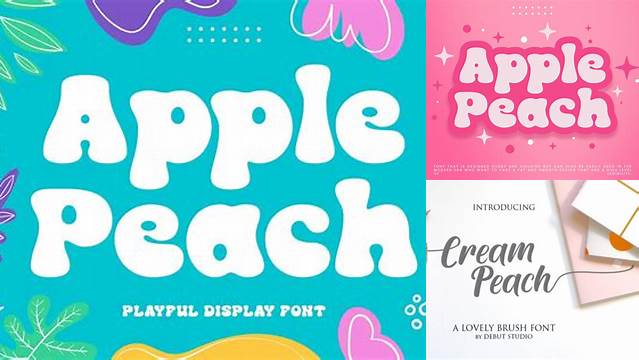
Hey guys! Are you looking for that perfect, whimsical font to add a touch of sweetness to your projects? Well, you've come to the right place! We're diving deep into the world of the Apple Peach font, a delightful typeface that's been making waves in the design community. This font is perfect for everything from invitations and greeting cards to social media graphics and branding materials. Let’s explore where you can find this gem, how to use it, and why it's such a fantastic choice. We'll cover everything you need to know about getting your hands on the Apple Peach font in TTF format and using it to its fullest potential. So, buckle up and let's get started!
Apple Peach Font: What Makes It So Special?
The Apple Peach font has a unique charm that sets it apart from other fonts. It’s playful yet elegant, making it a versatile choice for various design needs. Its hand-lettered style gives it a personal touch, as if each letter was carefully crafted with love. The slight imperfections and curves add character and make it feel more organic and less sterile than some of the more polished fonts out there. This is why Apple Peach font is so popular among designers looking to add a warm, inviting feel to their work. It’s the kind of font that makes people smile and remember your brand. Using the right font can truly elevate your design, and Apple Peach is a prime example of that!
Using Apple Peach Font in Graphic Design
The Apple Peach font is a fantastic choice for graphic design projects that need a touch of whimsy and personality. Its playful yet elegant style makes it perfect for a wide range of applications, from logos and branding to social media graphics and print materials. When using the Apple Peach font in your designs, consider the overall tone and message you want to convey. It works particularly well for projects that are fun, friendly, and inviting. Think about using it for invitations, greeting cards, children's books, or even a logo for a bakery or coffee shop. The font's unique character makes it stand out, helping your designs grab attention and leave a lasting impression. Remember to pair it with a complementary font for body text to create a balanced and visually appealing design.
Apple Peach Font for Branding
When it comes to branding, the font you choose can make a significant impact on how your brand is perceived. The Apple Peach font is an excellent choice for brands that want to project a friendly, approachable, and creative image. Its hand-lettered style adds a personal touch that can help your brand connect with customers on a more emotional level. Imagine using the Apple Peach font for your logo, website headers, and marketing materials. It can help your brand stand out from the competition and create a memorable identity. When incorporating the font into your branding, make sure it aligns with your overall brand message and aesthetic. Consistency is key, so use the font in a consistent manner across all your branding materials to reinforce your brand identity.
Creating Logos with Apple Peach Font
Designing a logo is a crucial part of branding, and the Apple Peach font can be a fantastic tool in your logo design arsenal. Its unique and charming style makes it a standout choice for logos that need a touch of personality. When creating logos with the Apple Peach font, think about how you can use the font's character to represent your brand's values and identity. For example, if you're designing a logo for a handmade goods shop, the font's hand-lettered feel can emphasize the artisanal quality of your products. Experiment with different letter combinations and layouts to find the perfect balance and visual impact. A well-designed logo using the Apple Peach font can be both eye-catching and memorable, helping your brand make a strong first impression.
Apple Peach Font in Social Media Graphics
Social media is all about grabbing attention, and the Apple Peach font can help your graphics stand out in a crowded feed. Its playful and inviting style makes it perfect for creating eye-catching social media posts, stories, and ads. Whether you're promoting a sale, announcing an event, or simply sharing a message, using the Apple Peach font can add a touch of personality and make your content more engaging. Think about using it for headlines, captions, or even watermarks on your images. Consistency is key, so use the font in a cohesive way across all your social media platforms to reinforce your brand identity. With the Apple Peach font, your social media graphics are sure to make a splash!